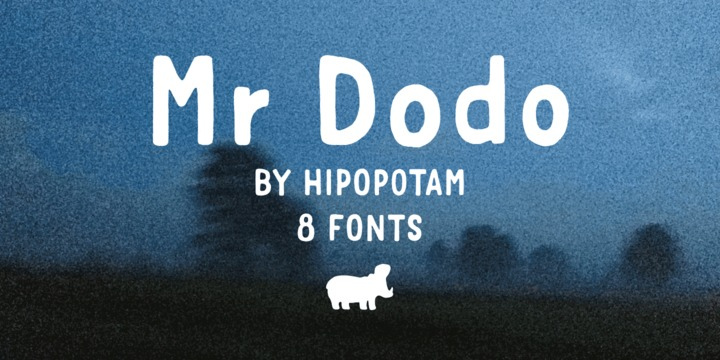
Mr Dodo Font
Mr Dodo Font is perfect for playful children's book titles, quirky brand logos, fun café signage, creative greeting cards, whimsical poster designs, casual blog headers, friendly app interfaces, cartoon character naming, and entertaining social media graphics.
What makes Mr Dodo Font exciting is its delightfully quirky character with bouncy letterforms that inject instant personality and charm into any design project. The font's playful irregularities and endearing imperfections create an approachable, handcrafted feel that resonates with audiences seeking authentic, human-centered design experiences rather than sterile corporate aesthetics.
Mr Dodo Font family includes regular and bold weights with playful alternates, decorative elements, and contextual variations, providing designers with extensive creative flexibility for developing unique and memorable typographic personalities across diverse applications.
This charming typeface captures the essence of creative spontaneity and joyful expression in every letterform. Mr Dodo Font Free Download presents designers with an exceptional opportunity to infuse their projects with genuine warmth and personality that connects emotionally with audiences. Whether you're designing children's educational materials, developing friendly brand identities, or creating engaging digital content, this font family delivers unmatched character and visual appeal.
The carefully balanced quirkiness ensures readability while maintaining the font's distinctive charm, making it suitable for both headlines and extended text applications. The comprehensive character set supports multiple languages for international creative projects.
Mr Dodo Font stands out in the display font category through its perfect blend of professionalism and playfulness, proving that serious design work can embrace joy and creativity. This exceptional typeface transforms ordinary messages into memorable experiences, making it an invaluable tool for designers who understand that emotional connection drives successful communication.